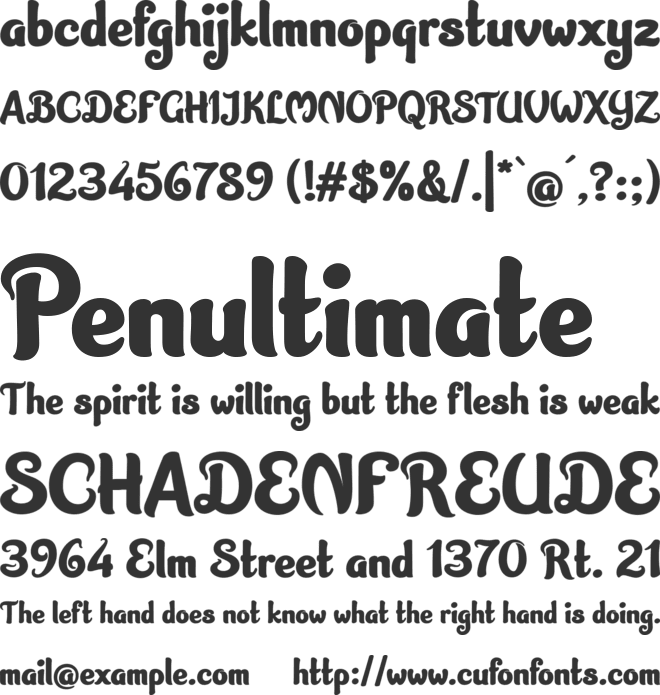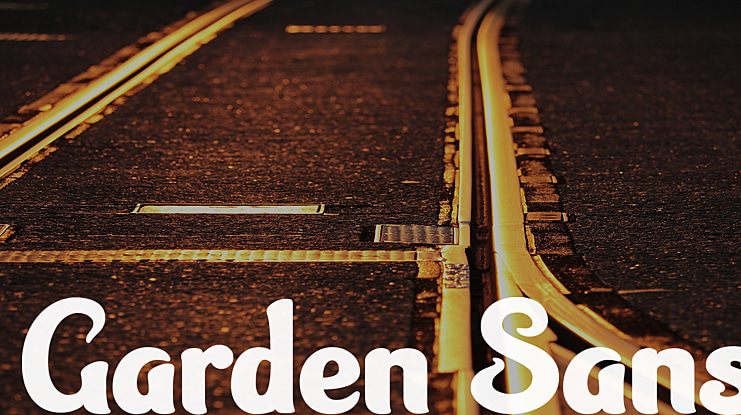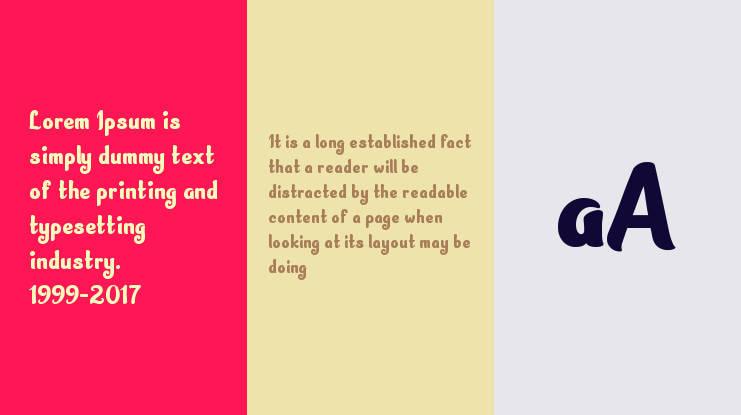
Garden Sans Font
Presenting my cool black letter round corner and semi serif font! This font have beautiful smooth curve by carefully crafted with love. Tail style is unique from other black letter on the market. This fat momma will suitable for title, logo, subtitle, etc.
This font featured with 375 glyphs and supported to complete basic Latin and eastern Europe characters.